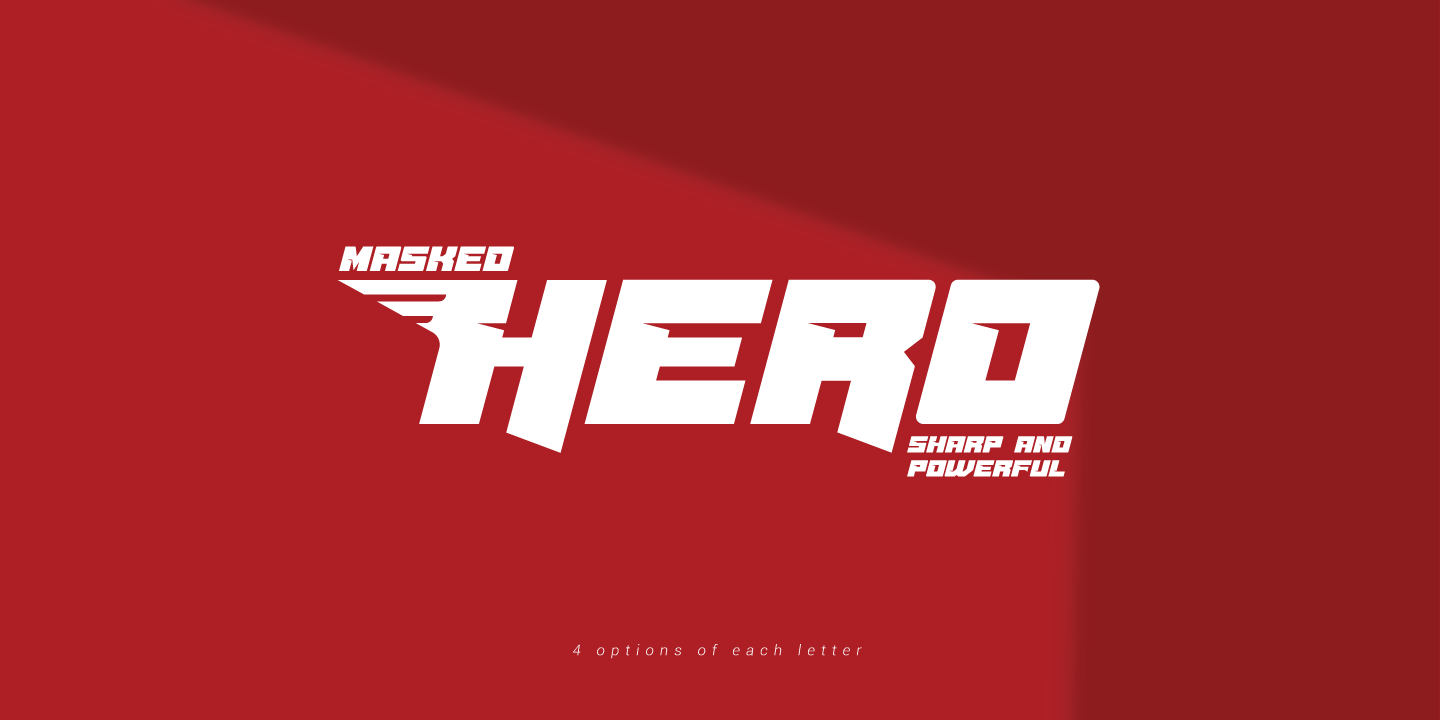
Masked Hero Font is perfect for superhero comic books, action movie posters, gaming interfaces, adventure brand identities, heroic campaign materials, vigilante-themed designs, comic convention signage, action figure packaging, superhero merchandise, and powerful marketing communications.
Masked Hero Font is exciting because it channels the legendary power and mysterious allure of masked vigilantes with its bold, cape-swooping letterforms that seem forged in the fires of justice and tempered by the shadows of secret identities. Its heroic character design captures both the strength needed to face impossible odds and the enigmatic appeal that makes heroes unforgettable, making it perfect for brands seeking to inspire courage and extraordinary achievement.
Masked Hero Font family includes light, regular, medium, bold, and black weights, each with corresponding italic versions. The font family also features superhero symbols, heroic ornaments, action-inspired ligatures, and vigilante decorative elements that enhance its powerful aesthetic and versatility.
This heroically powerful typeface represents the perfect fusion of superhuman strength and mysterious sophistication. Masked Hero Font Free Download allows designers to unleash its heroic potential before making a commercial commitment. The font's ability to convey both unstoppable power and enigmatic appeal makes it ideal for brands targeting adventure seekers, gamers, and audiences inspired by heroic narratives.
Whether you're developing action entertainment branding, creating superhero game interfaces, or designing inspirational campaign materials, Masked Hero Font brings an unmistakable sense of heroic power and legendary presence to every project. Its masked character and heroic heritage create powerful connections that inspire audiences to embrace their own extraordinary potential.
The font's versatility excels in entertainment and inspirational environments where strength and mystery are paramount. Its heroic character makes it particularly effective for comic publishers, gaming companies, action entertainment brands, and motivational organizations seeking to establish legendary connections with audiences hungry for heroic inspiration.
For designers working on projects requiring authentic superhero character and heroic appeal, Masked Hero Font provides an exceptional solution. Its legendary presence and comprehensive hero-themed elements offer the tools needed for creating truly inspiring communications, while its mysterious power ensures your designs capture the extraordinary spirit that transforms ordinary individuals into legendary heroes.